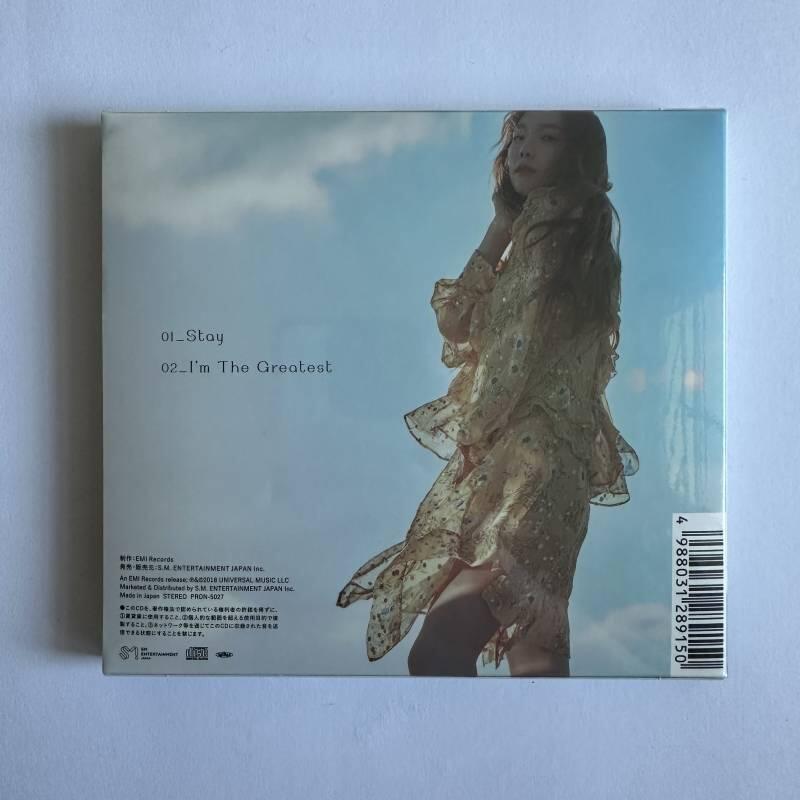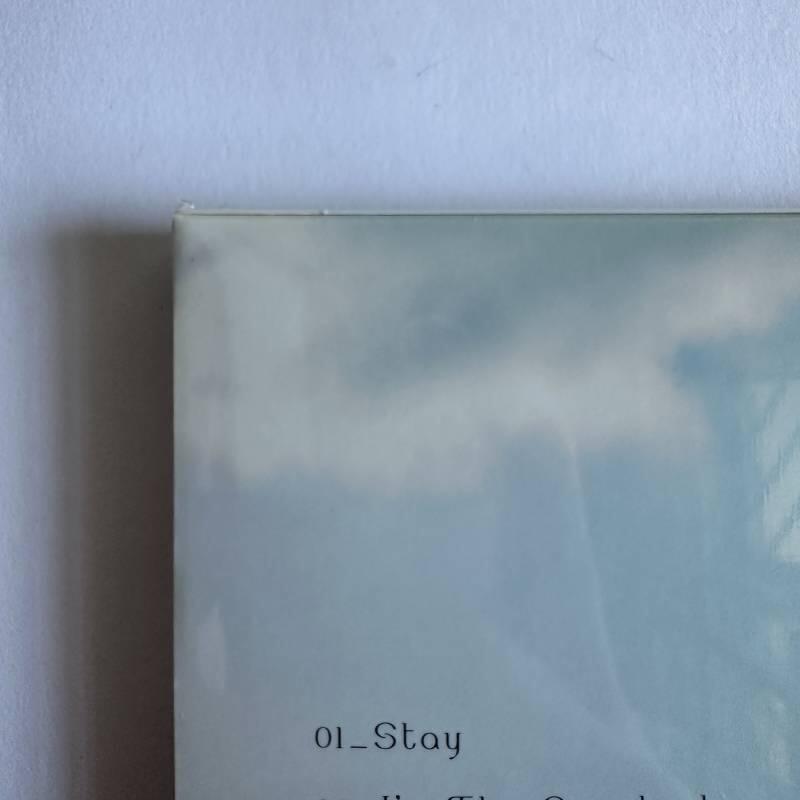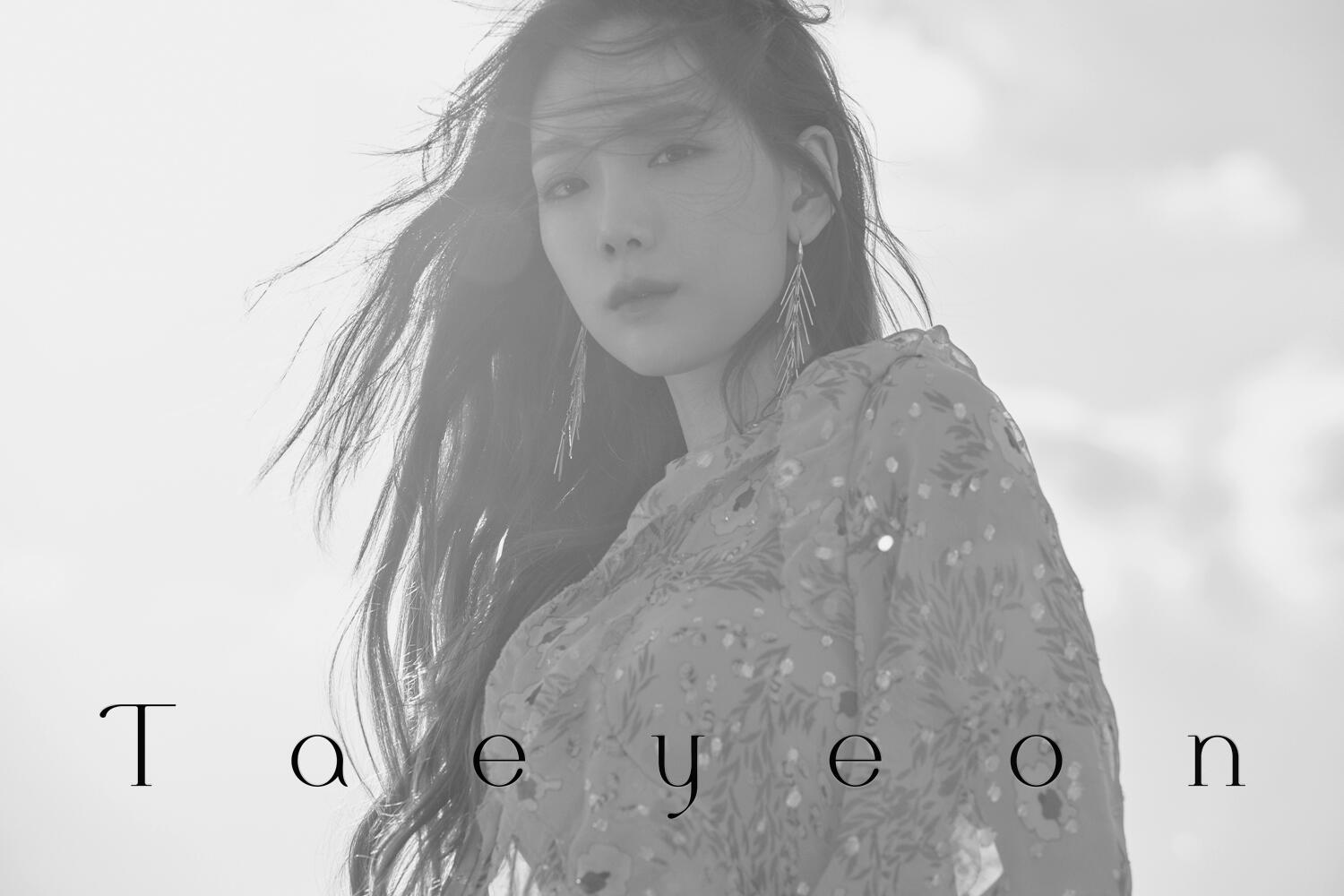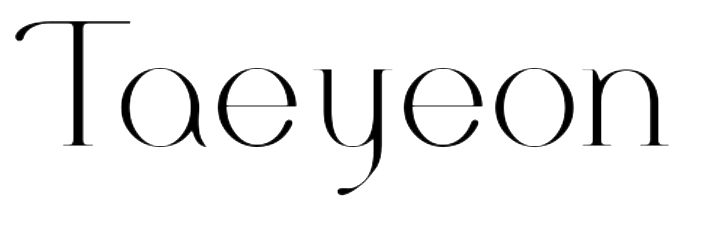
Looking for the font on the album cover for STAY by TAEYEON
Also there on the digital booklet
Provided samples
Found a few similar fonts but the S and the y especially are distinct so looking for an exact match
Found it on Fontke as Tender regular, but cannot find any legal source.